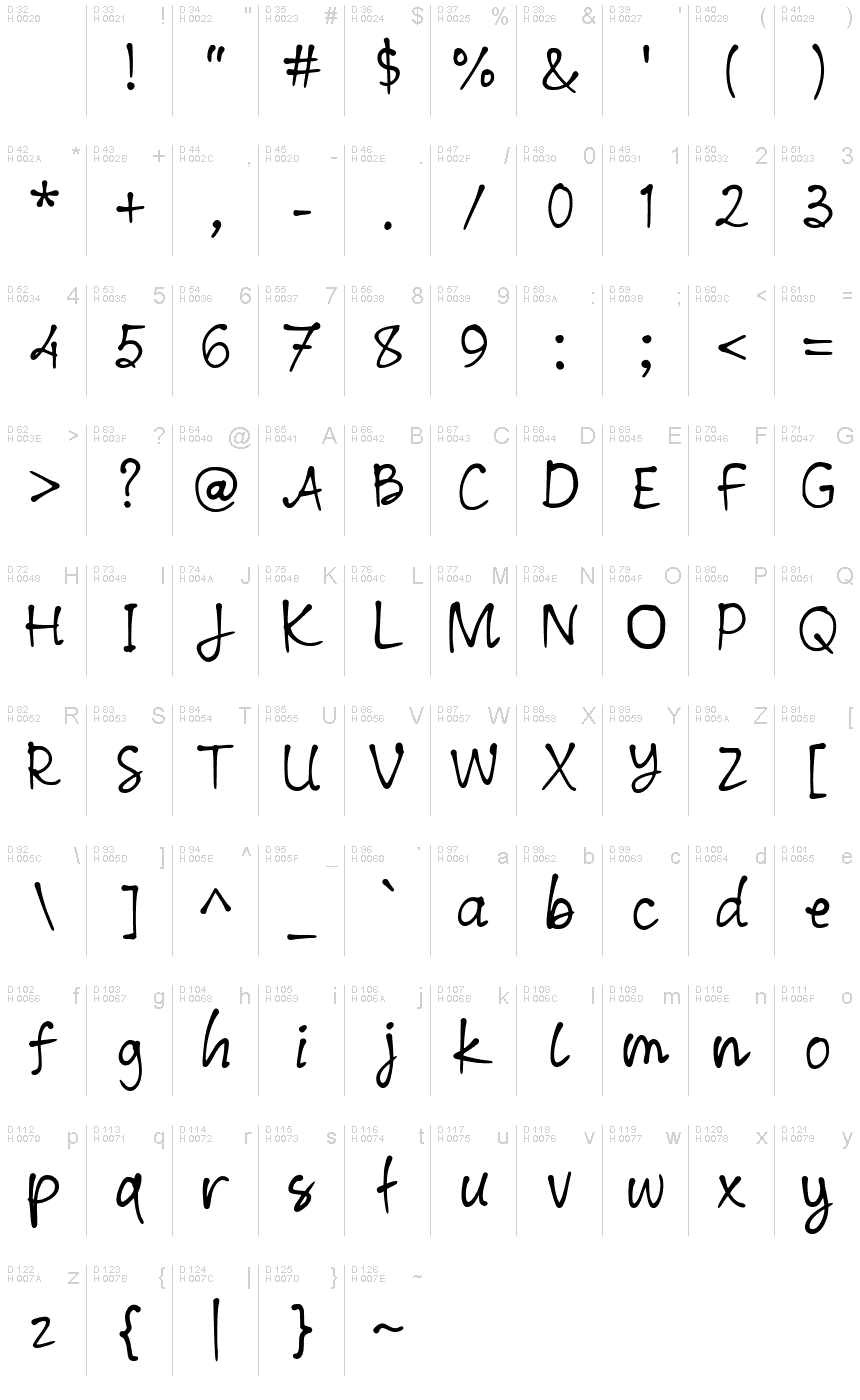
Pharatha Regular
Introducing Pharatha, a light handwritten script font designed by Sidkia. This elegant typeface is perfect for adding a personal touch to any project, from wedding invitations to logo designs.
Sidkia